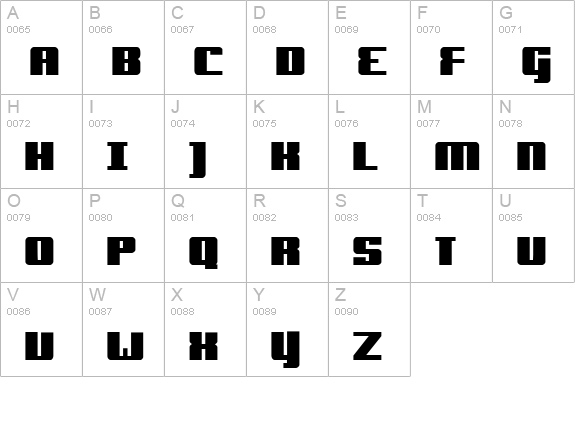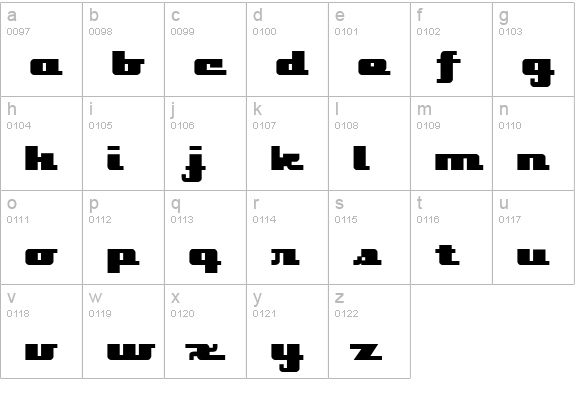
onakite Bold is a strong, high-contrast variant in the onakite typeface family \xE2\x80\x94 well suited to headlines, attention-grabbing titles, and strong calls-to-action.
Onakite Bold font is a striking and stylish typeface that exudes confidence and modernity. With its clean lines and bold curves, this font is perfect for making a statement in your designs. Whether you're creating eye-catching headers, attention-grabbing logos, or impactful posters, Onakite Bold font will help your text stand out from the crowd. The best part? Onakite Bold font is available for free download at FontsMarket.com. This means you can easily add this versatile and dynamic font to your collection without having to spend a penny. Don't miss out on the opportunity to elevate your designs with the bold and impactful Onakite Bold font – download it today and let your creativity shine!